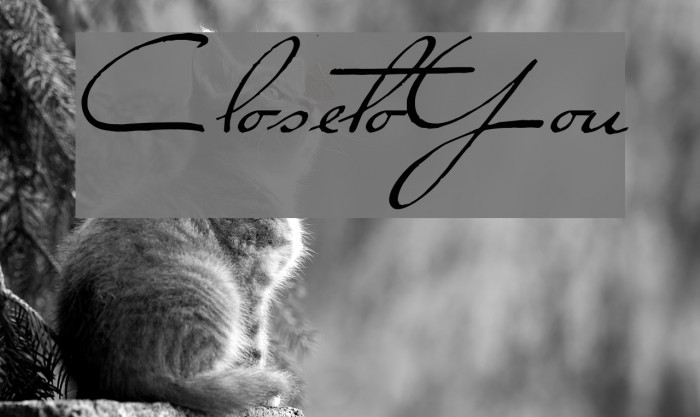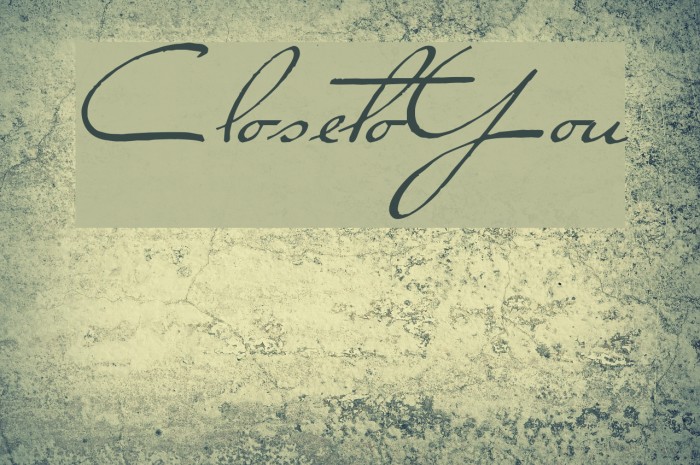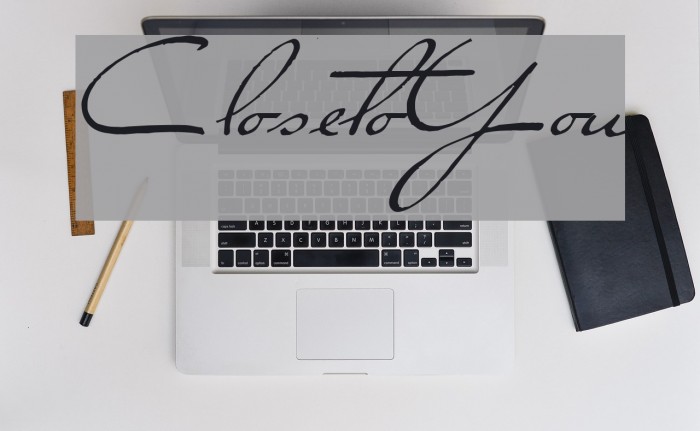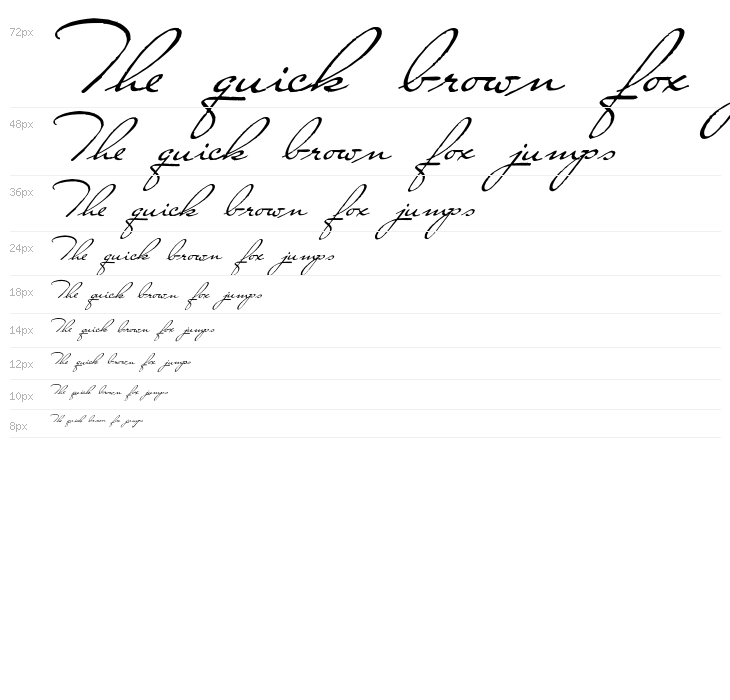
ClosetoYou Font
ClosetoYou Description
This font exudes elegance and sophistication with its flowing, cursive style. The uppercase letters are delicately crafted with graceful loops and swirls, giving it a refined and classic appearance. The lowercase letters maintain a consistent fluidity, enhancing the overall aesthetic with their smooth, connected strokes. This script font is reminiscent of traditional calligraphy, offering a sense of timeless beauty. The characters are well-balanced, with a slight slant that adds to the dynamic feel. The numbers and special characters are designed to match the elegance of the alphabet, ensuring a cohesive look throughout.
| Proposed Projects | Ideal for wedding invitations, elegant branding, personal stationery, and romantic quotes. |